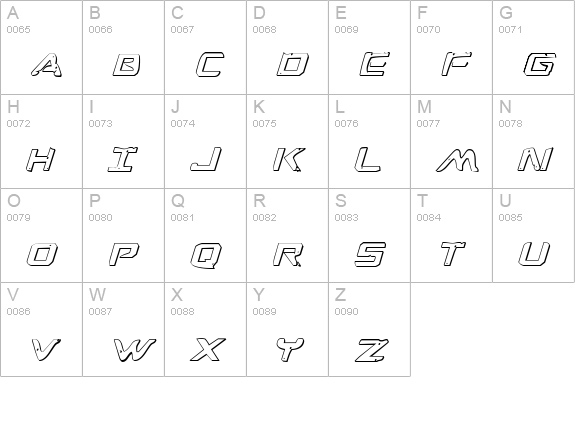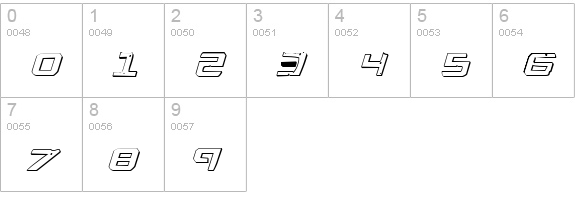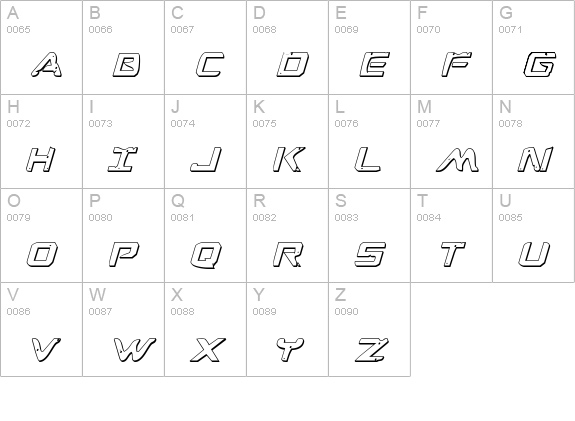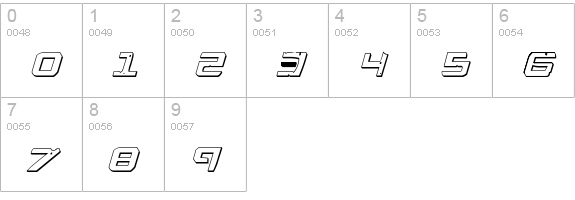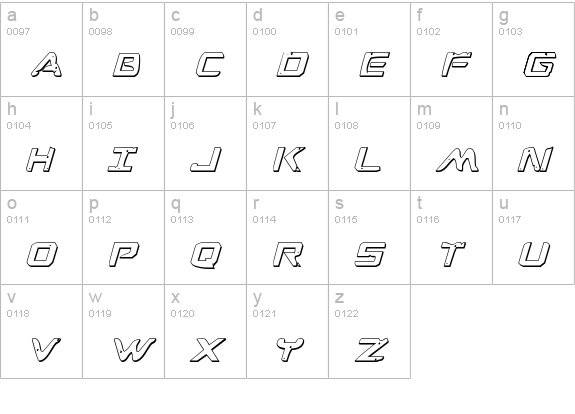
War Eagle 3D Italic Font Details
War Eagle 3D Italic is a distinctive, italic variant in the War typeface family \xE2\x80\x94 well suited to design and typography projects.
Introducing War Eagle 3D Italic font, a bold and dynamic typeface that exudes strength and modernity. With its three-dimensional effect and sleek, italic design, this font is perfect for projects that demand a powerful and eye-catching aesthetic. The sharp angles and intricate details of War Eagle 3D Italic make it stand out from the crowd, capturing attention and leaving a lasting impression. The best part? War Eagle 3D Italic font is available for free download at FontsMarket.com. Whether you're working on a logo, poster, website, or any other creative project, this font will take your design to the next level. Don't miss out on the opportunity to enhance your work with the striking and versatile War Eagle 3D Italic font - download it today and let your creativity soar.